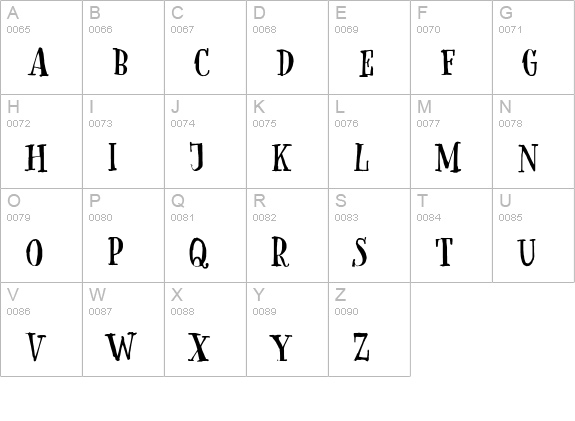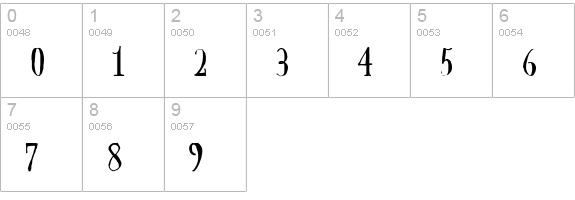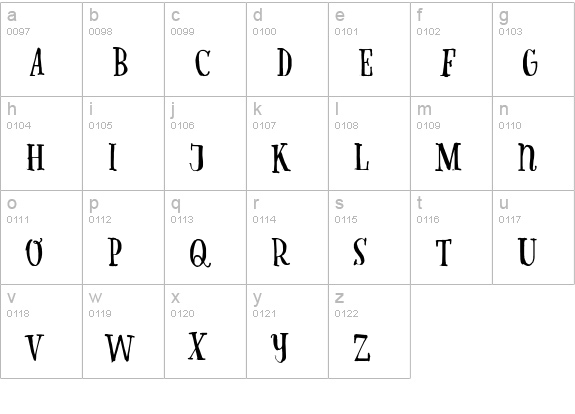
Goodlife Serif Font Details
Goodlife Serif font is a classic and elegant typeface that exudes sophistication and refinement. With its timeless serifs and graceful curves, Goodlife Serif is the perfect choice for projects that require a touch of tradition and style. This versatile font is ideal for a wide range of applications, from branding and editorial design to invitations and packaging. What sets Goodlife Serif apart is not only its aesthetic appeal but also its accessibility. This premium font is available for free download at FontsMarket.com, allowing designers and creatives to elevate their work without breaking the bank. Whether you're working on a personal project or a client commission, Goodlife Serif is sure to add a touch of class and elegance to your designs. Download it today and discover the endless possibilities of this exquisite typeface.